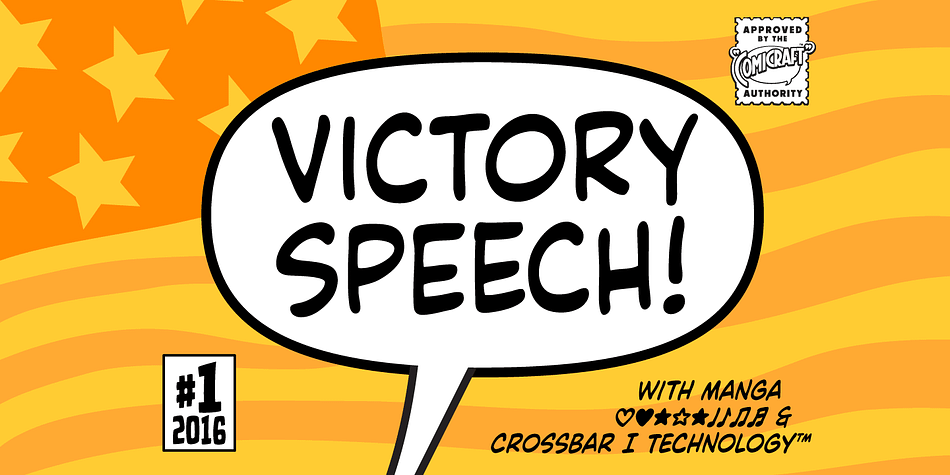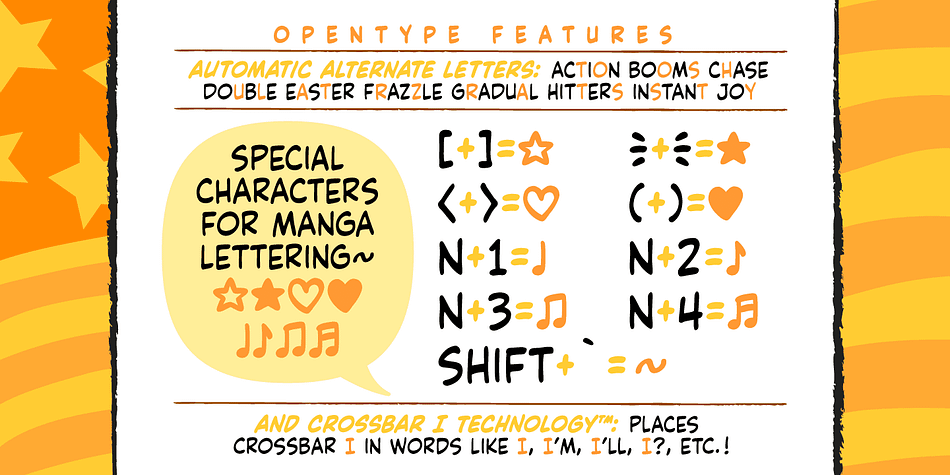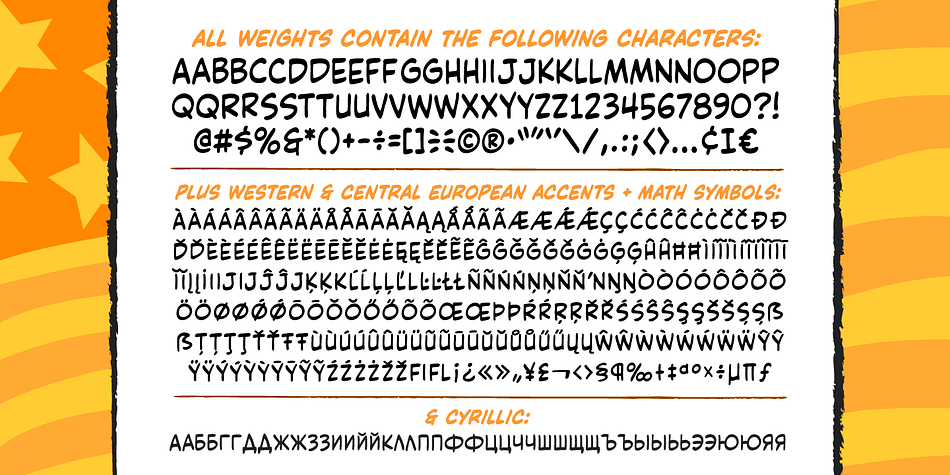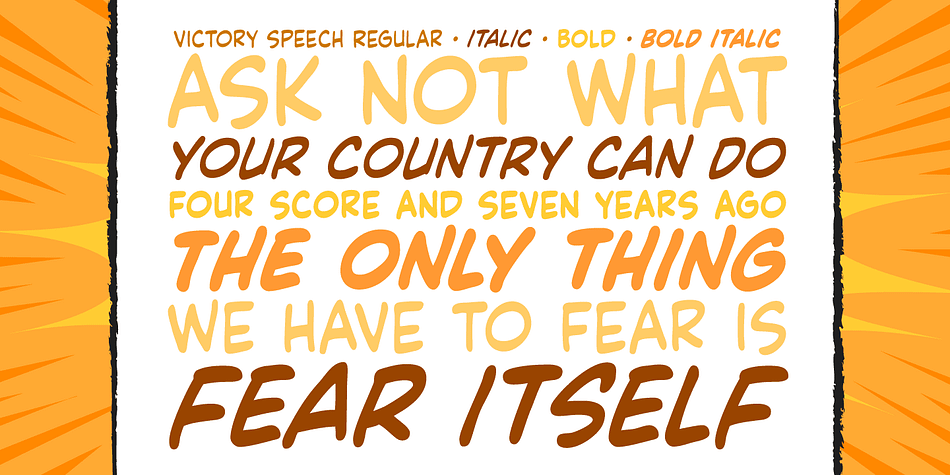
Designed by John Roshell, Victory Speech is a comic and hand display font family. This typeface has four styles and was published by Comicraft.
It’s that time of year again, isn’t it? And yes, we’re speaking rhetorically, because our true intent is to rouse voters into action, claim a significant gain in support over our nearest rivals and lead the nation, perhaps The World, into a new era of prosperity, one in which our once proud nation can become great yet again! An era of Hope, a time of peace and an end to war! Because never, in the field of human conflict, have so many, given so much and gained so little so that the have nots can reward themselves and those that have and-and… Victory, and Hope, and Greatnessness!